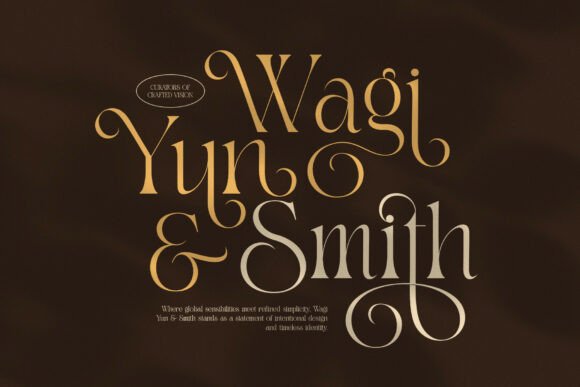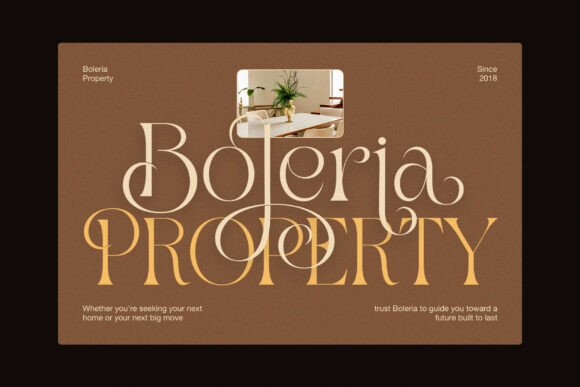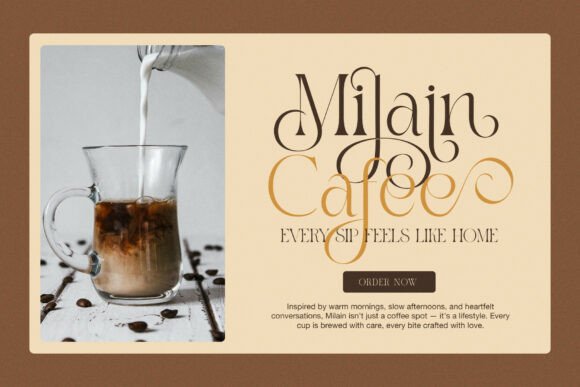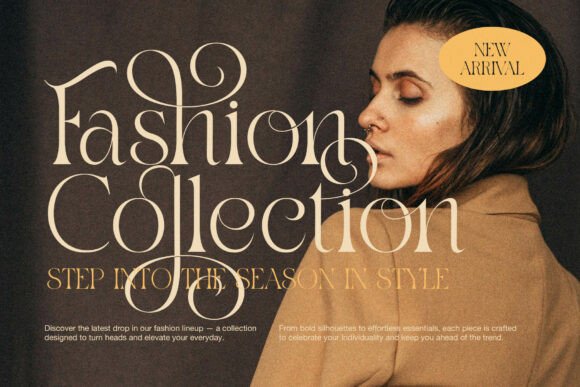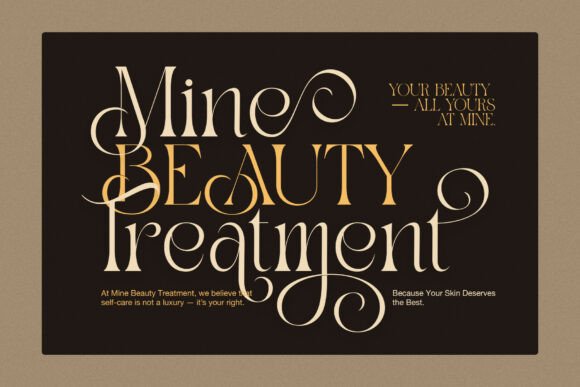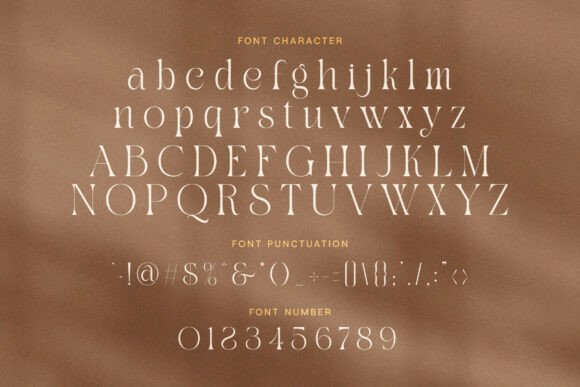
Drak Sistem Font: Elevate Your Designs with Elegance and Sophistication
In the world of typography, a well-crafted font can make all the difference in elevating your designs to new heights. Drak Sistem Font is a stunning example of a meticulously designed typeface that exudes elegance, sophistication, and a touch of luxury. With its classic serif base, soft contrast between thick and thin strokes, and exquisite details, Drak Sistem is the perfect choice for designers and crafters looking to add a touch of refinement to their work.
A Classic Serif Base with a Modern Twist
Drak Sistem Font boasts a classic serif base that provides a sense of timelessness and tradition. However, what sets it apart from other serif fonts is its soft contrast between thick and thin strokes. This subtle nuance gives the font a smooth, balanced, and polished appearance that is both visually appealing and highly legible. The letterforms themselves are meticulously crafted to create a sense of harmony and flow, making Drak Sistem a joy to read and behold.
Intricate Details and Ornate Swashes
One of the standout features of Drak Sistem Font is its intricate details. Many of the letters include long curls, rounded terminals, and ornate swash alternates that add a touch of whimsy and personality to the font. These details give Drak Sistem a custom and handcrafted feel that is reminiscent of artisanal craftsmanship. The uppercase letters are bold and expressive, while the lowercase letters feel light and graceful, creating a beautiful contrast that adds depth and visual interest to any design.
Ligatures and Typography
Drak Sistem Font also includes beautiful ligatures that help words flow in a natural way. Ligatures are a hallmark of high-end typography, and Drak Sistem’s implementation is seamless and elegant. The font’s ligatures add a touch of sophistication and refinement to any text, making it perfect for large titles, luxury logos, wedding names, florist branding, and stylish display layouts.
Versatility and Applications
Drak Sistem Font is an incredibly versatile typeface that can be used in a wide range of applications. Its elegant and refined appearance makes it perfect for:
- Large titles and headings: Drak Sistem’s bold and expressive uppercase letters make it perfect for creating eye-catching titles and headings.
- Luxury logos: The font’s sophisticated and refined appearance makes it ideal for luxury brands and high-end businesses.
- Wedding names and stationery: Drak Sistem’s elegant and ornate details make it perfect for wedding names, stationery, and other formal events.
- Florist branding: The font’s natural and organic feel makes it well-suited for florists, gardeners, and other businesses that work with nature.
- Stylish display layouts: Drak Sistem’s unique and refined appearance makes it perfect for creating stylish and eye-catching display layouts.
In conclusion, Drak Sistem Font is a truly exceptional typeface that offers a unique blend of elegance, sophistication, and refinement. With its classic serif base, soft contrast between thick and thin strokes, and exquisite details, Drak Sistem is the perfect choice for designers and crafters looking to elevate their designs to new heights. Whether you’re working on a luxury brand, wedding stationery, or simply want to add a touch of elegance to your designs, Drak Sistem Font is an excellent choice.
So why settle for a generic, run-of-the-mill font when you can have a truly exceptional typeface like Drak Sistem? With its versatility, elegance, and refinement, Drak Sistem Font is sure to become a staple in your design toolkit.